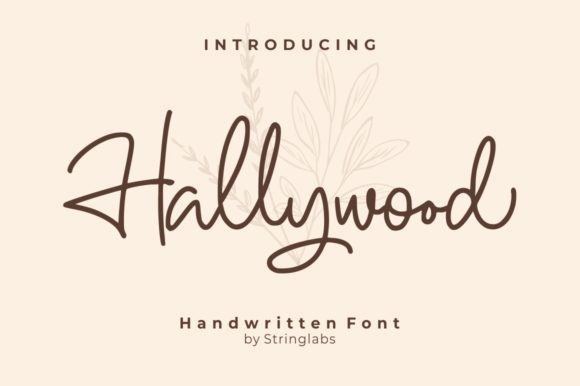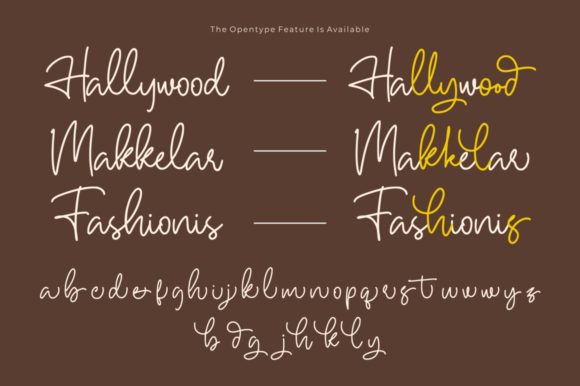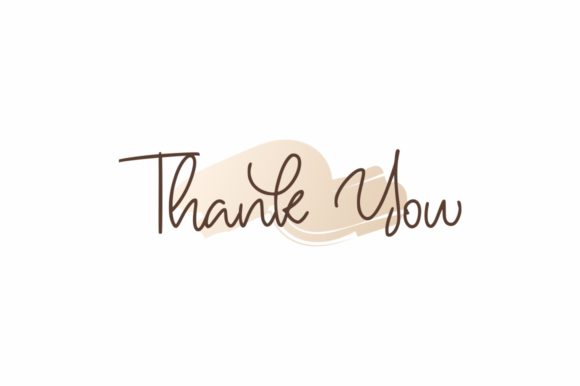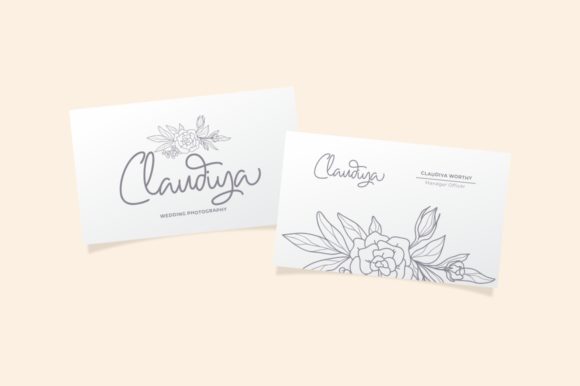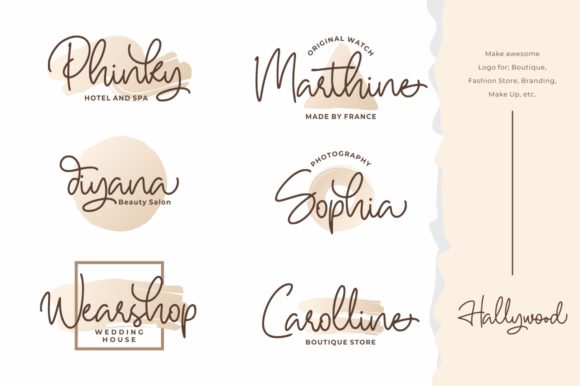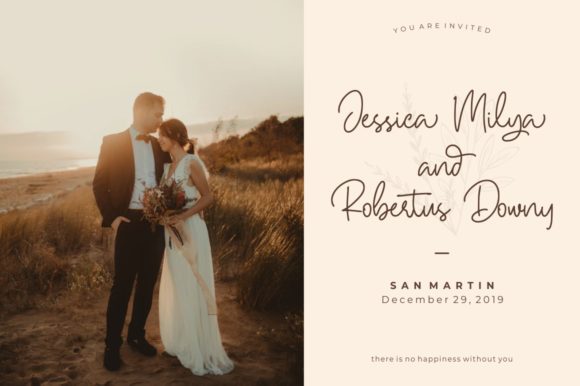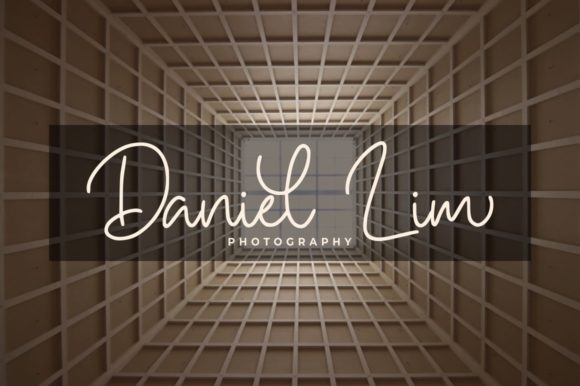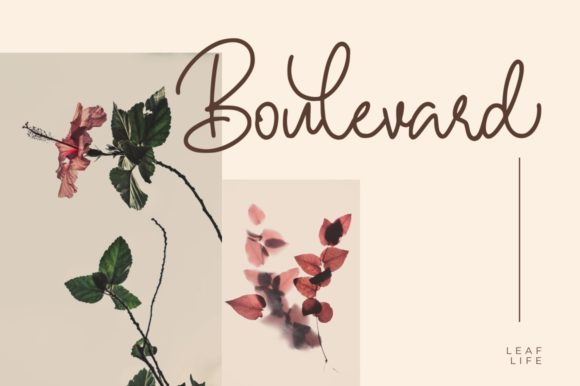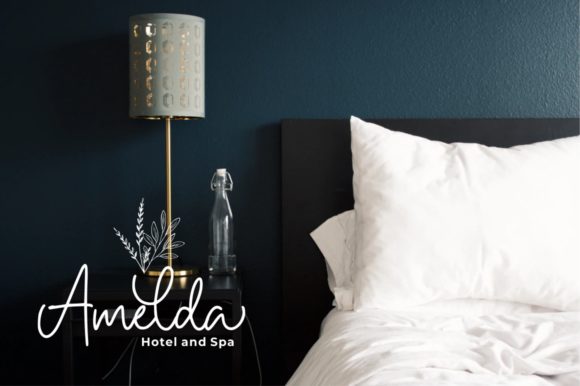
Hallywood Font
About Hallywood Font
Hallywood is a sweet handwritten font. It’s perfect for logos, wedding invitations, signatures, advertising and much more!